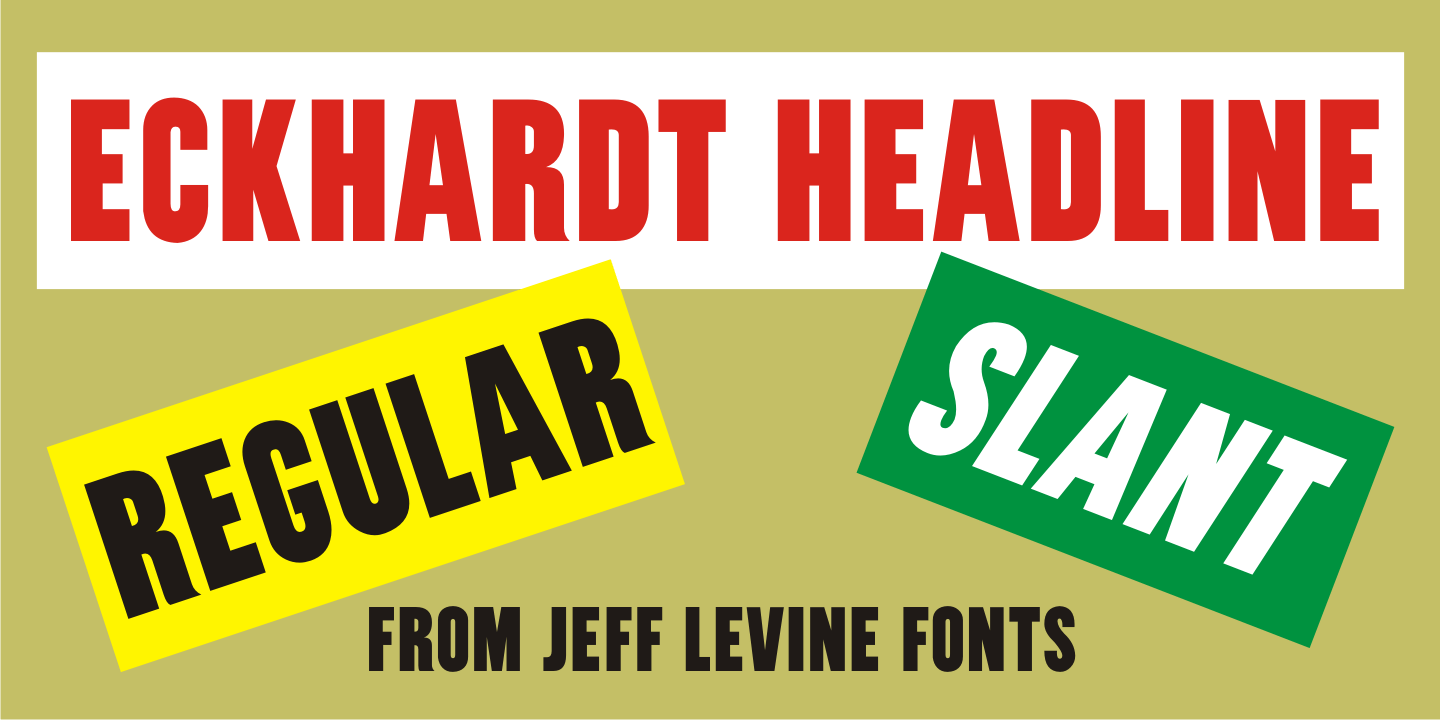
Eckhardt Headline
Eckhardt Headline JNL is a bold, condensed sans serif font. This is part of a series of typefaces popular with the sign trade. Named in honor of the late Albert Eckhardt, Jr. - a talented sign writer and a good friend of type designer Jeff Levine - it is available in both regular and "slant" for extra emphasis.